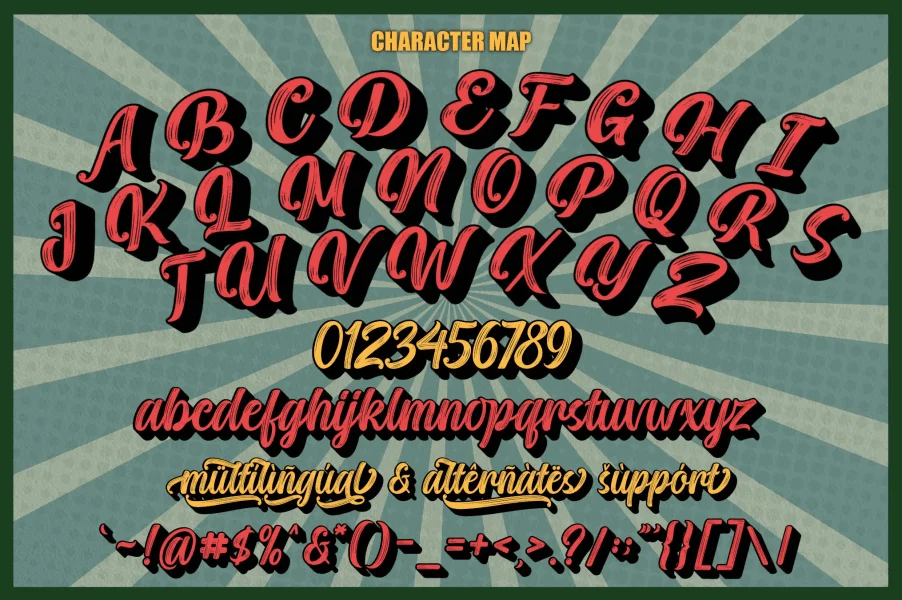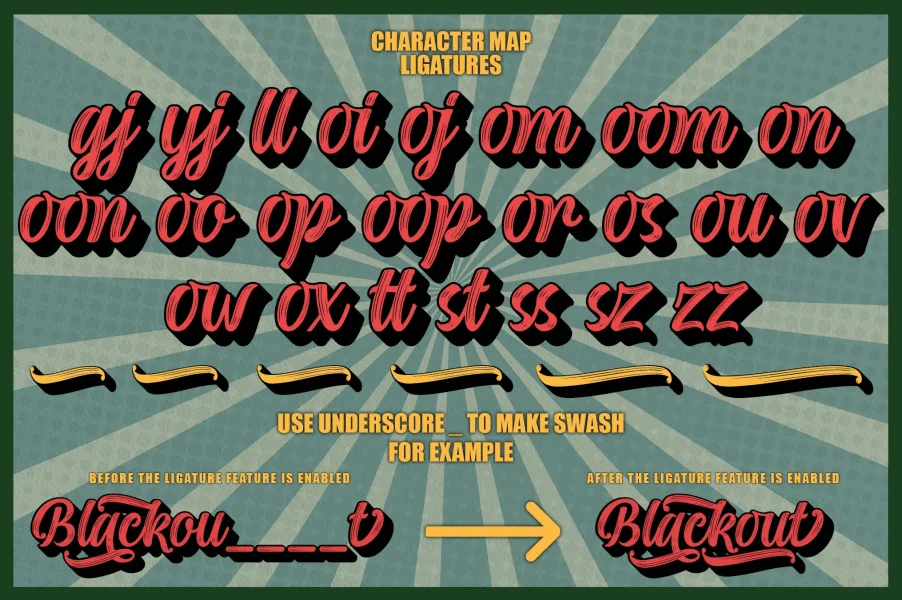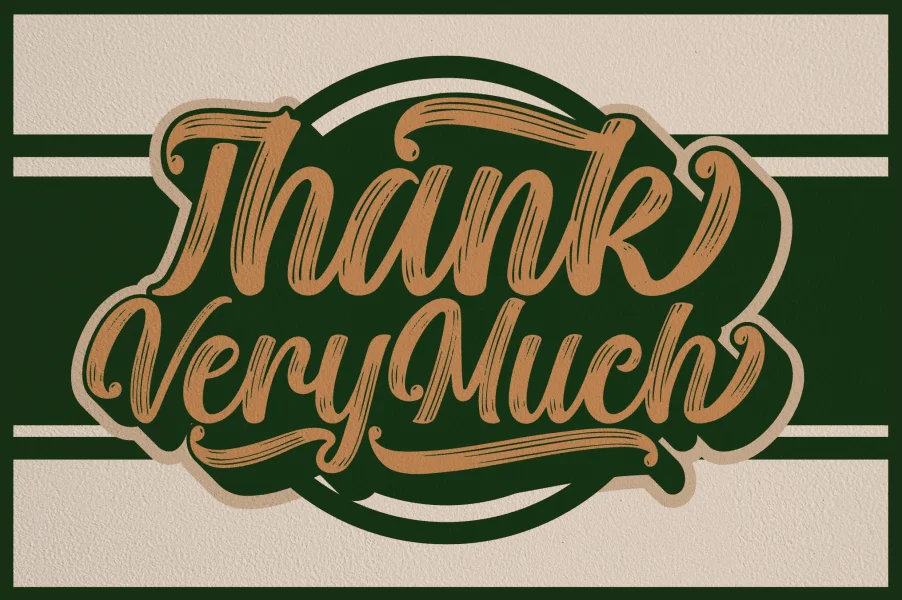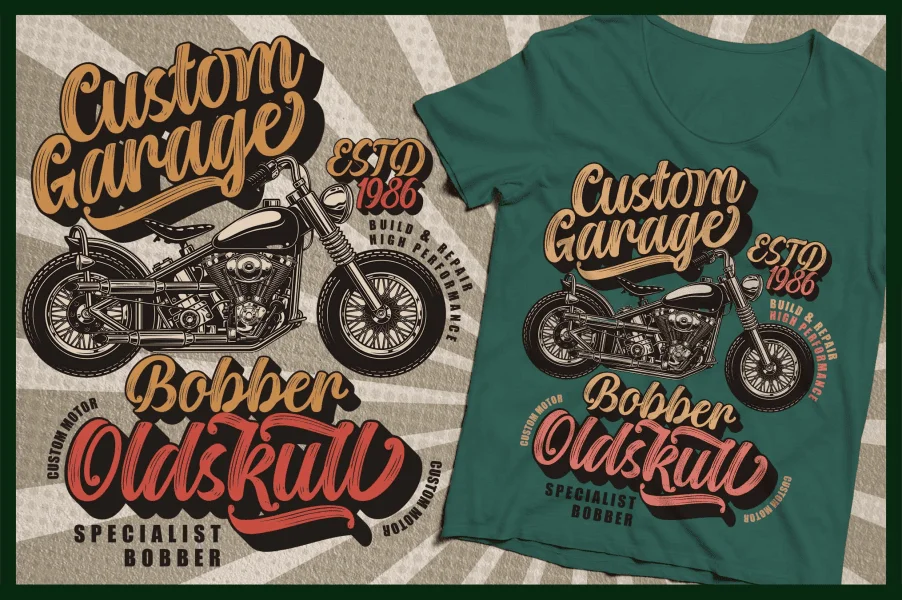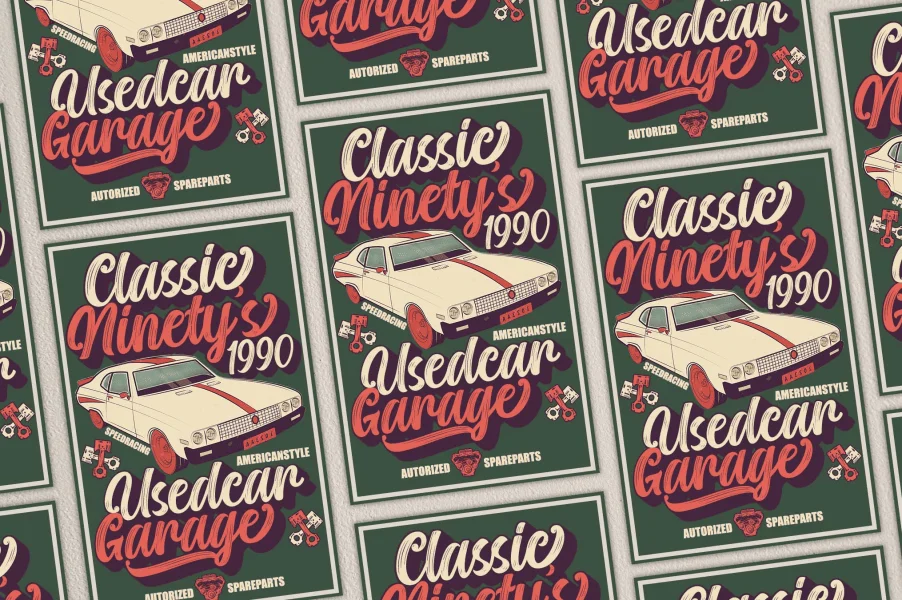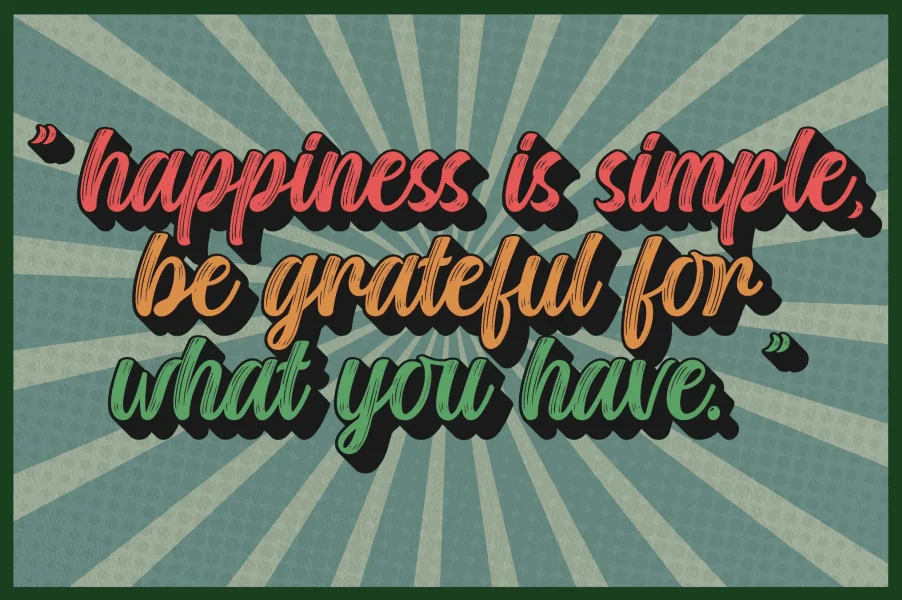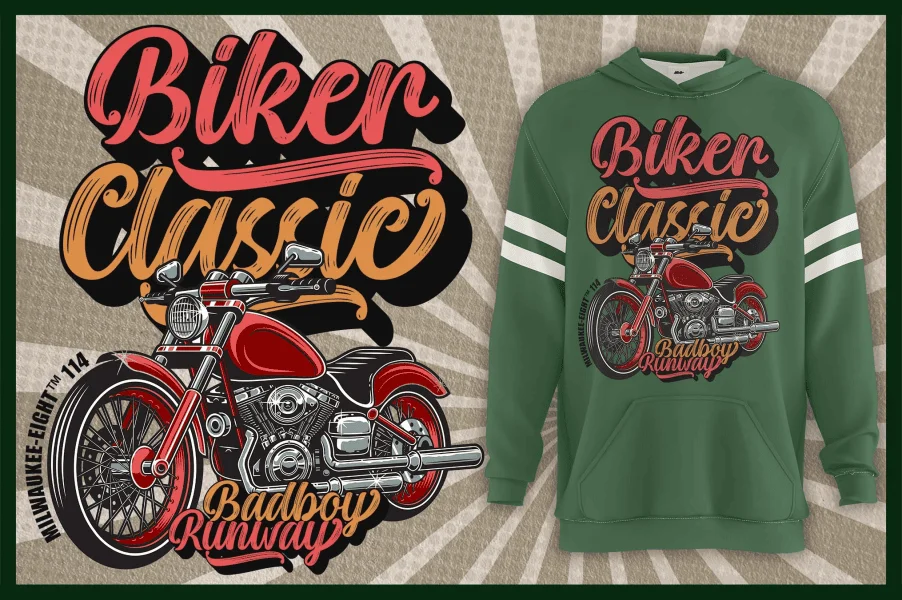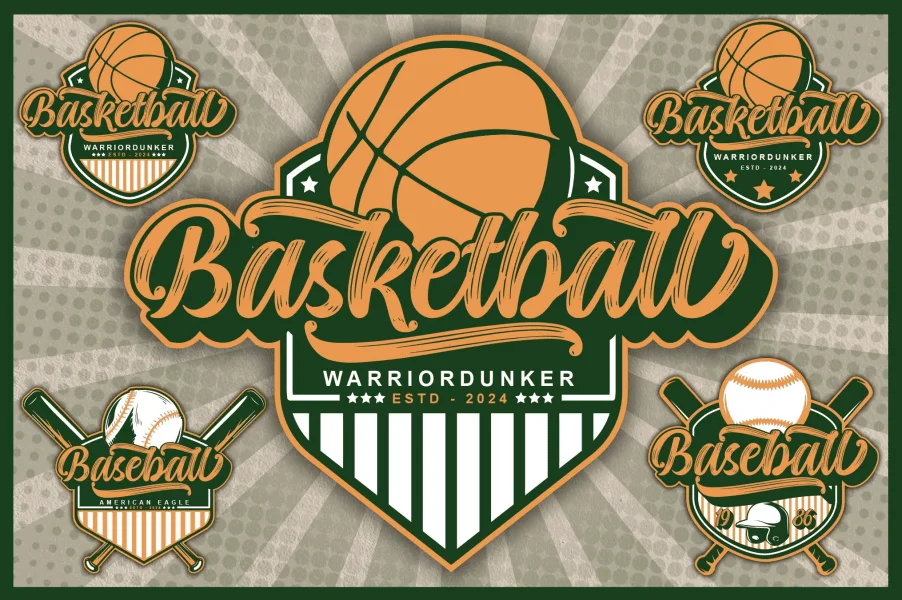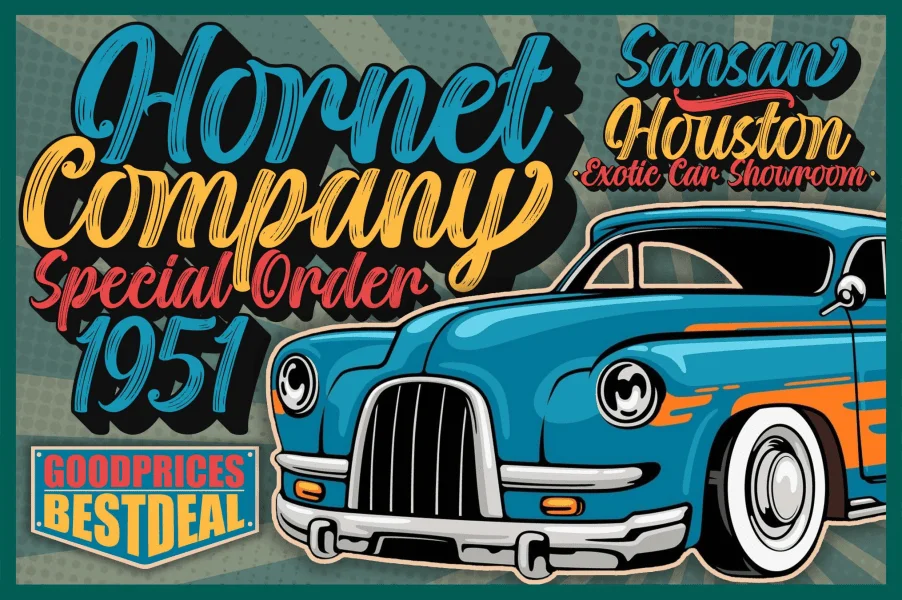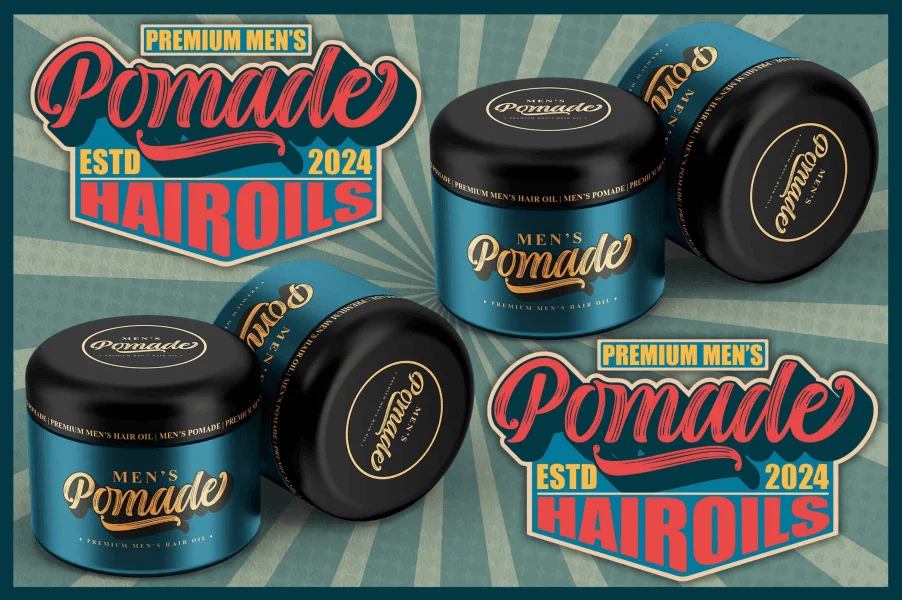
Hello Ladies & Gentlemen, Introduce My Name is Blackout Oldskull Font, I was born with a retro style handwriting using a brush and has Extrude as a 3D layer. You can also use this font together to emphasize the appearance of the design you create.
Of course, this Blackout Oldskull font is very Instagrammable. It can be used for many projects that you are working on, such as company branding, logotypes, and product branding, be it clothes/hoodies, company names, shop names, product branding, and many more.